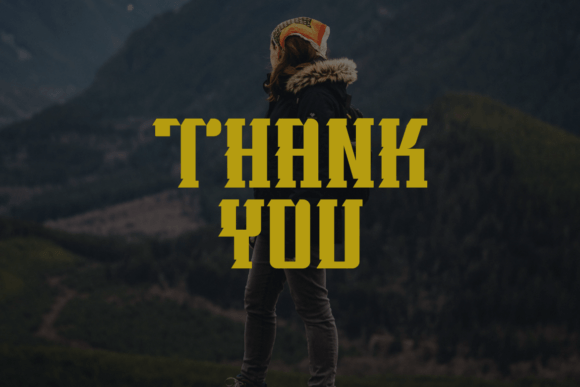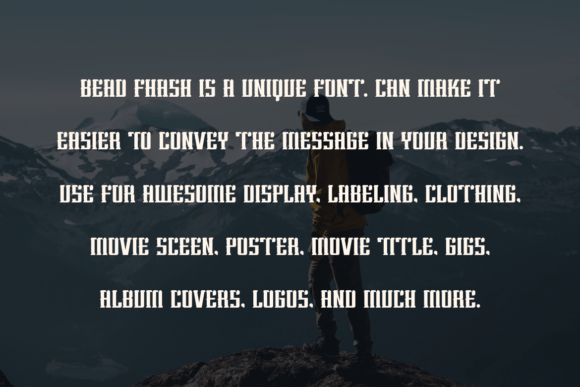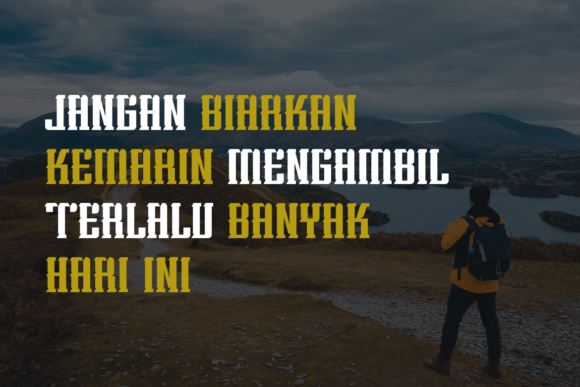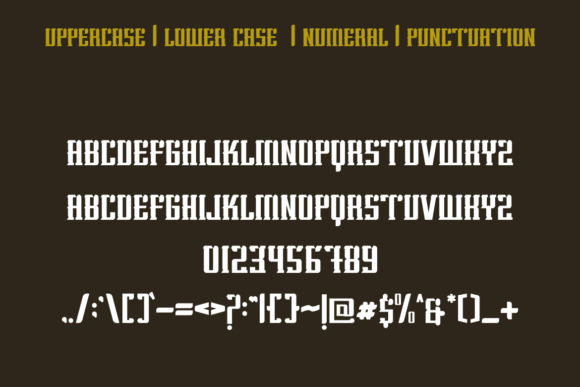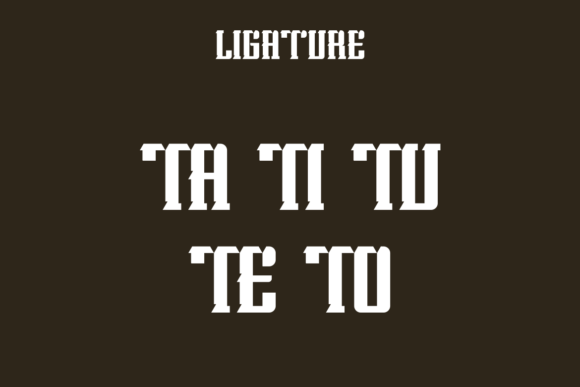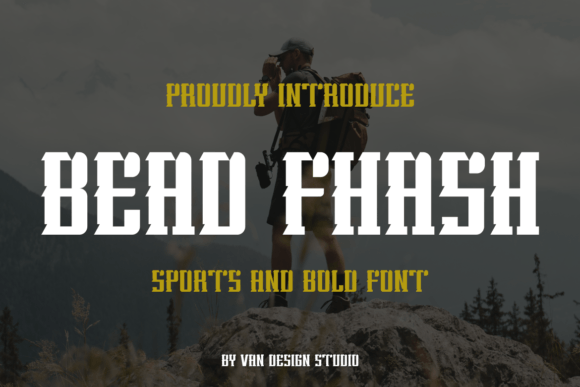
Discover the Enchanting World of Bead Fhash Font
Are you tired of using the same old fonts in your designs? Look no further! Bead Fhash is an incredibly cool and unique blackletter font that will add a touch of magic to your creations. With its modern yet whimsical style, Bead Fhash will undoubtedly immerse your designs into a magical world.
What is Bead Fhash Font?
Bead Fhash is a distinctive blackletter font that combines traditional and contemporary elements. Its unique design features intricate bead-like details, giving it a one-of-a-kind look that’s sure to capture attention. This font is perfect for designers and crafters looking to add a touch of elegance and sophistication to their work.
Key Features of Bead Fhash Font
- Unique Blackletter Style: Bead Fhash boasts a modern blackletter style with a twist, featuring bead-like details that give it a distinctive look.
- Whimsical and Elegant: This font strikes the perfect balance between whimsy and elegance, making it suitable for a wide range of design projects.
- Highly Versatile: Bead Fhash can be used for various design applications, including branding, packaging, titles, and more.
- Easy to Read: Despite its ornate details, Bead Fhash remains highly legible, making it perfect for body text and headings.
Uses of Bead Fhash Font
Bead Fhash is an incredibly versatile font that can be used in a variety of design projects, including:
- Branding and Logos: Create unique and memorable logos that stand out from the crowd.
- Packaging Design: Add a touch of elegance and sophistication to your product packaging.
- Stationery and Invitations: Create beautiful and eye-catching stationery, invitations, and greeting cards.
- Digital Designs: Use Bead Fhash in your digital designs, such as social media graphics, blog posts, and website headers.
Tips for Using Bead Fhash Font
To get the most out of Bead Fhash, here are some tips to keep in mind:
- Pair with Simple Fonts: Pair Bead Fhash with simple, clean fonts to create visual contrast and make your designs more readable.
- Use for Headings and Titles: Bead Fhash is perfect for headings and titles, so use it to add a touch of elegance to your designs.
In conclusion, Bead Fhash is an incredibly cool and unique blackletter font that will add a touch of magic to your designs. With its modern yet whimsical style, Bead Fhash is perfect for designers and crafters looking to create unique and eye-catching designs. Whether you’re working on a branding project, packaging design, or digital design, Bead Fhash is sure to immerse your designs into a magical world.